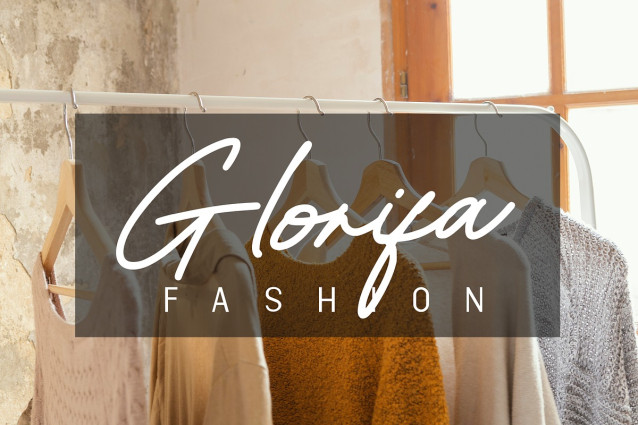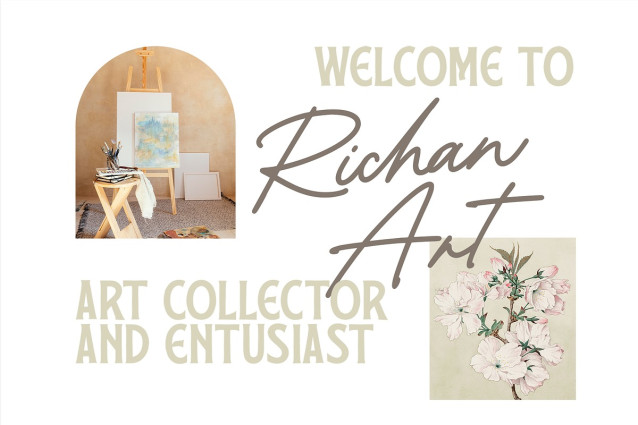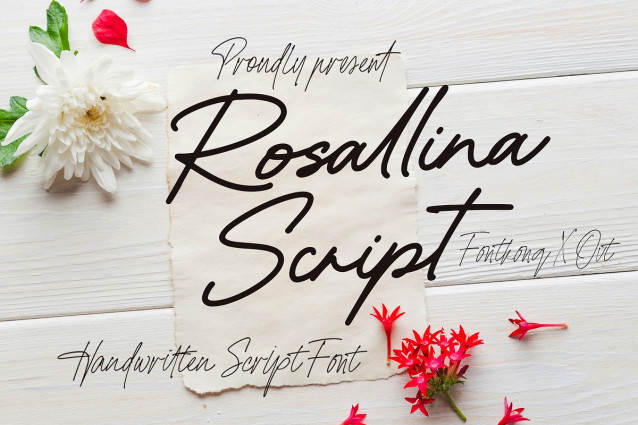
Rosallina Script Font
Rosallina Script Font  is a beautifully handwritten script font with a delicate, flowing design. Perfect for wedding invitations, branding, and personal projects, it adds an elegant and personal touch to your creative work.